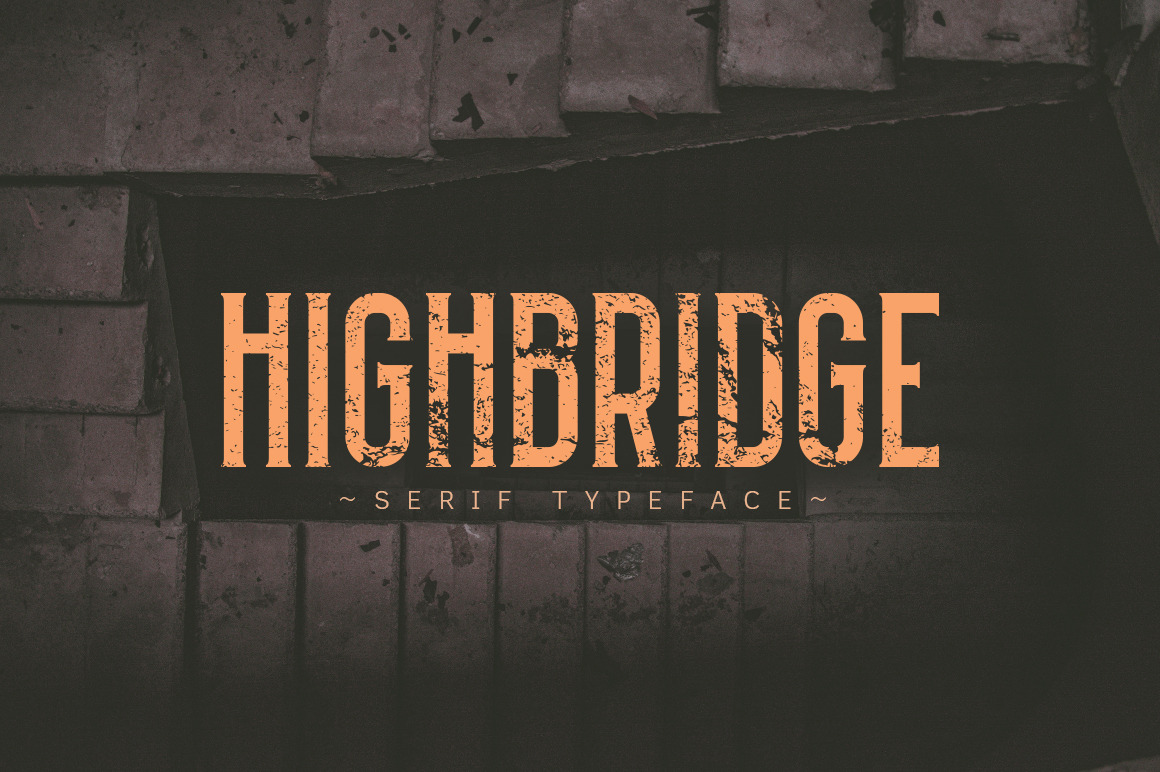
HIGHBRIDGE Typeface
HIGHBRIDGE is a modern serif font but with the spirit of antiquity. Best for logos and prints.
- Basic latin glyphs
- ALL-CAPS letters